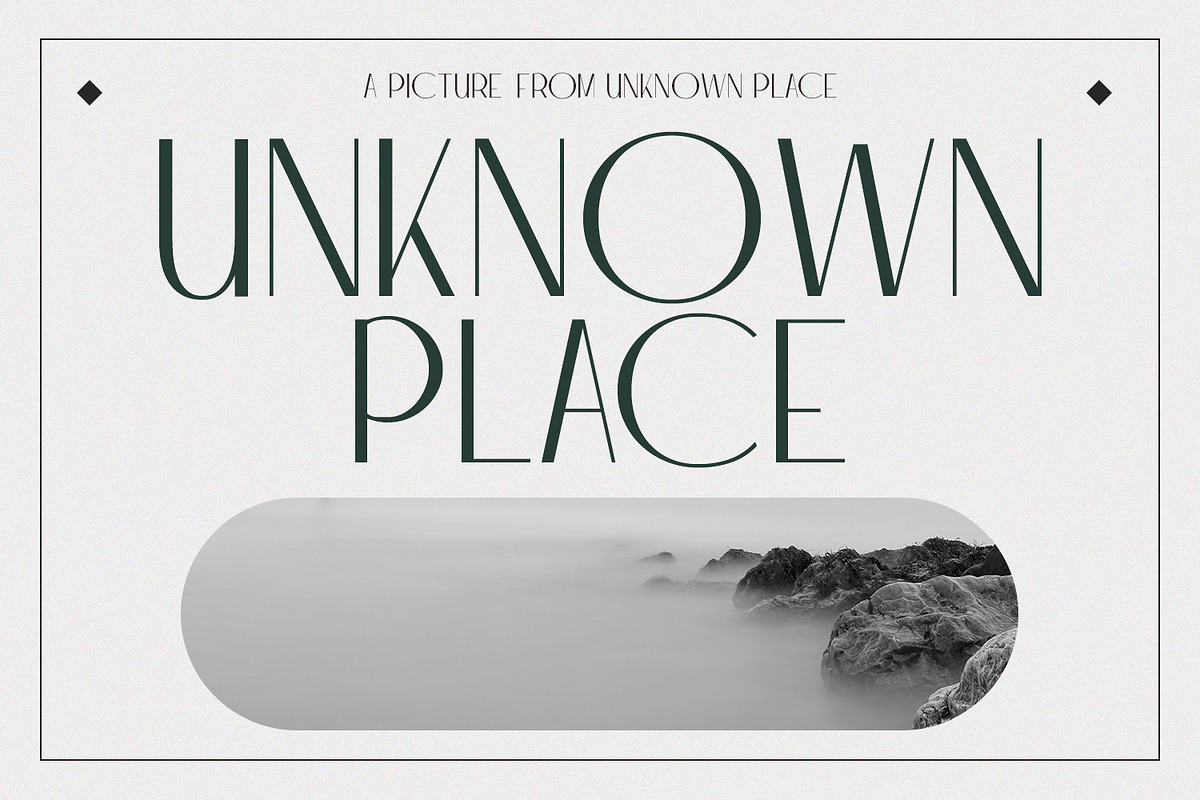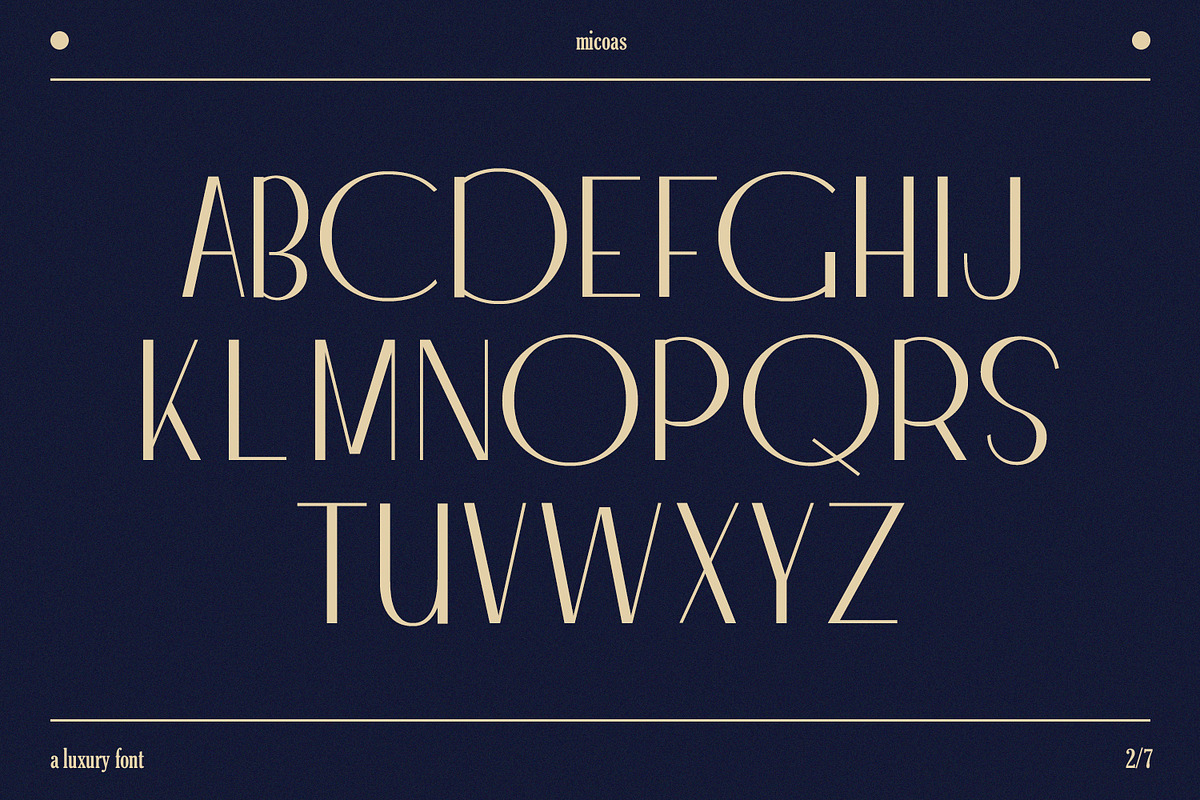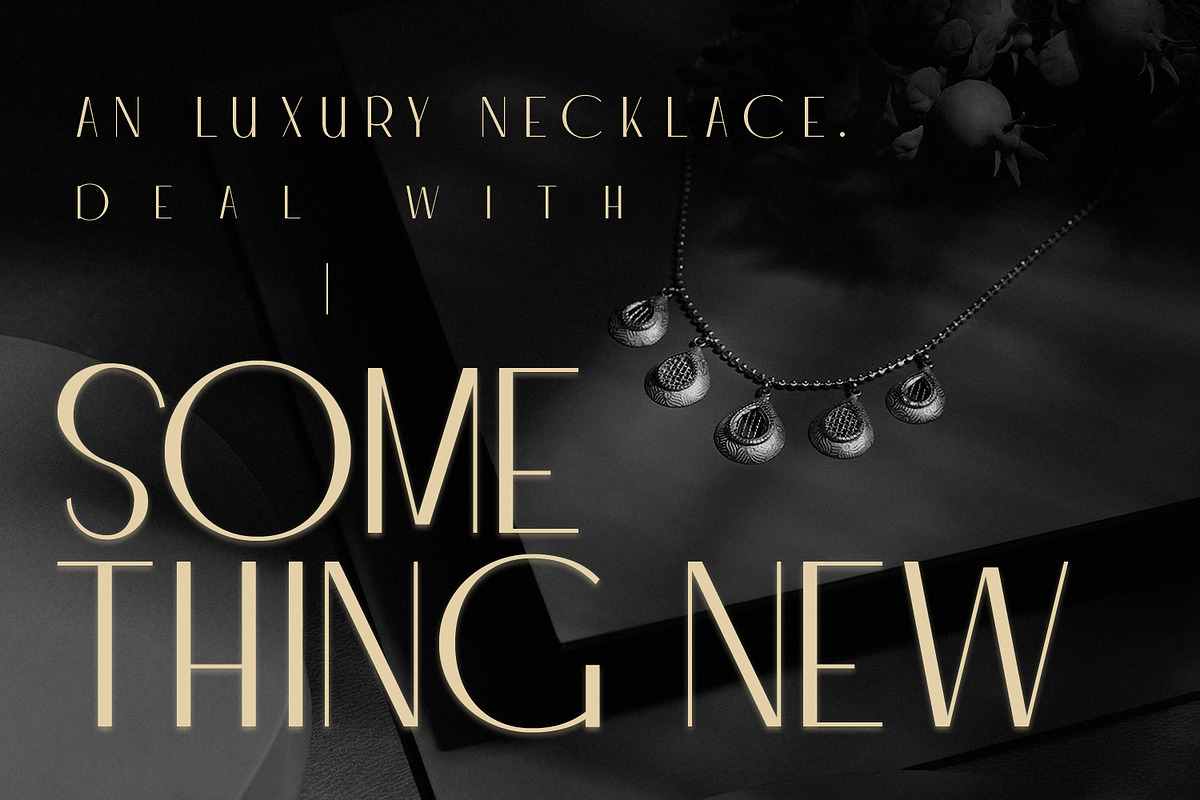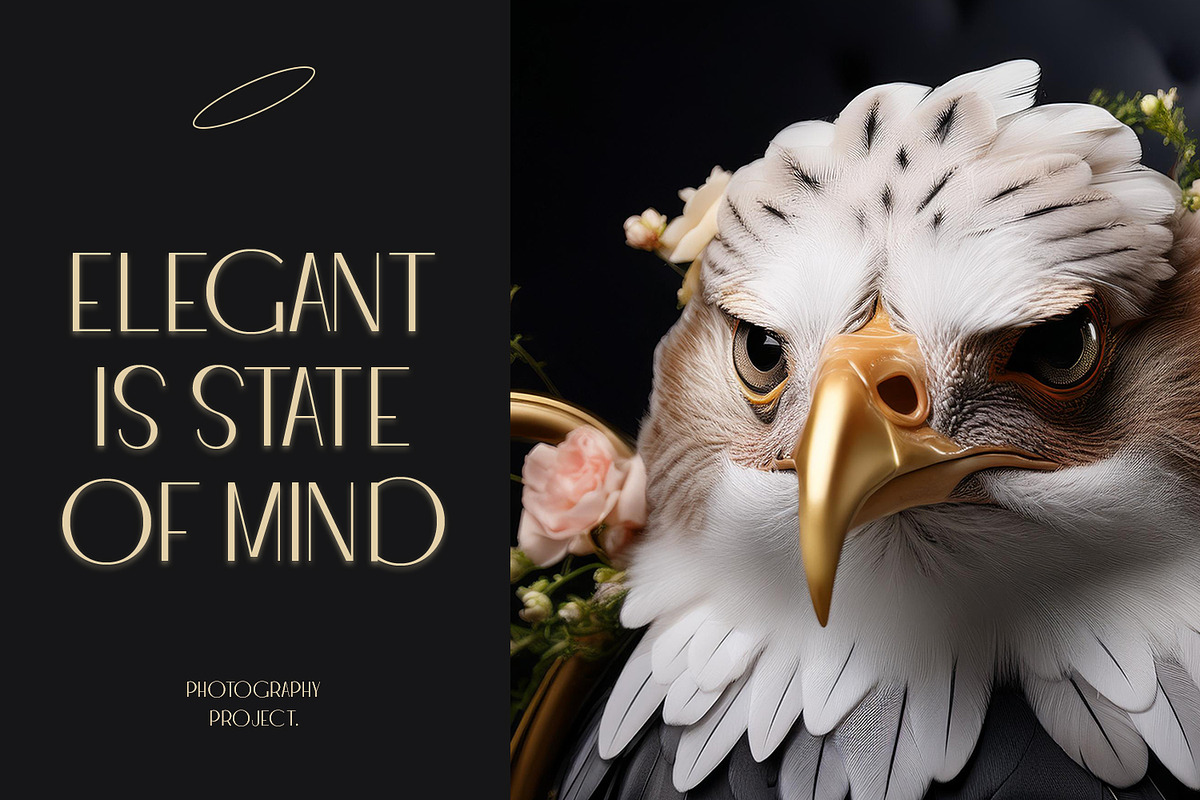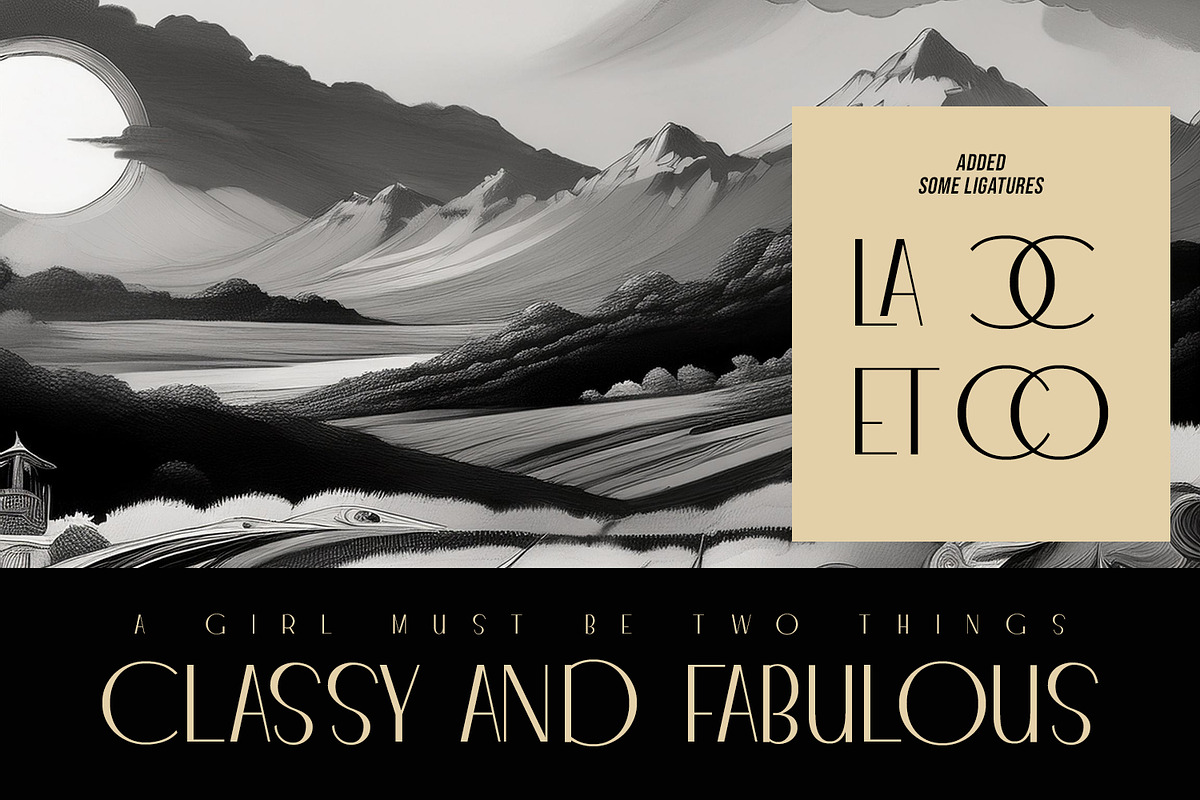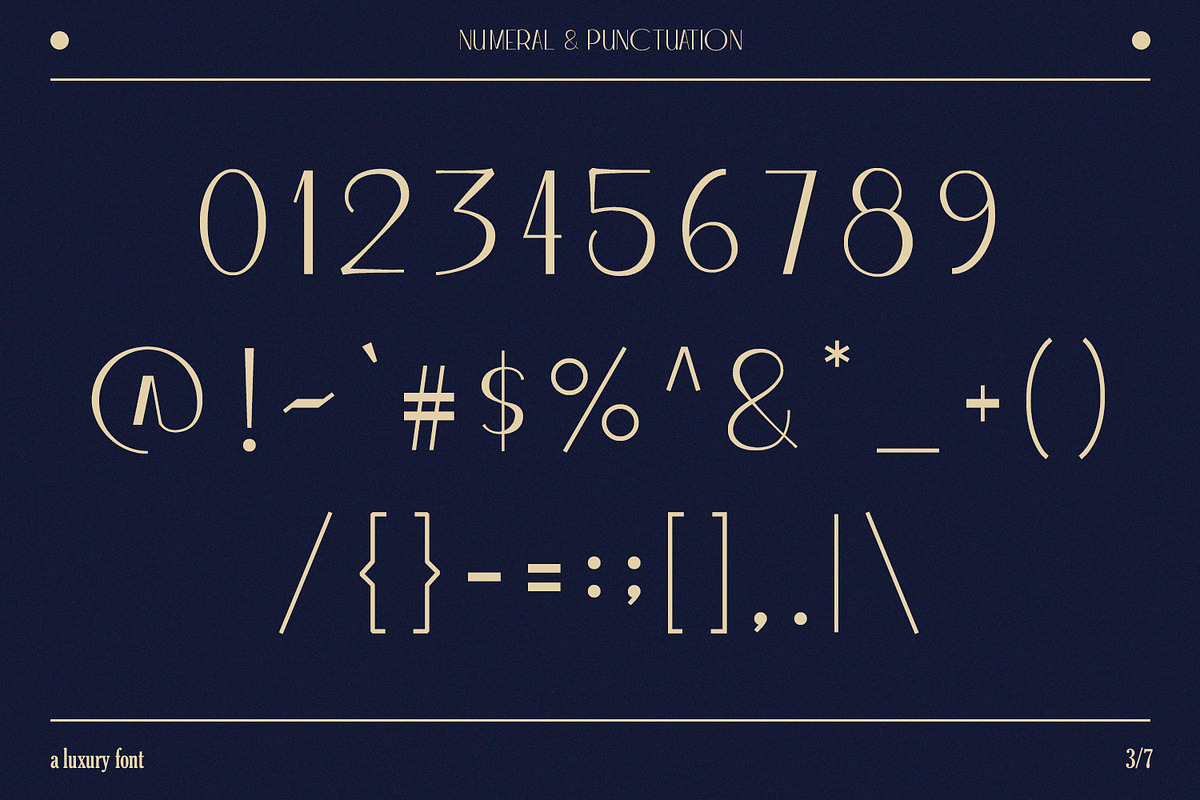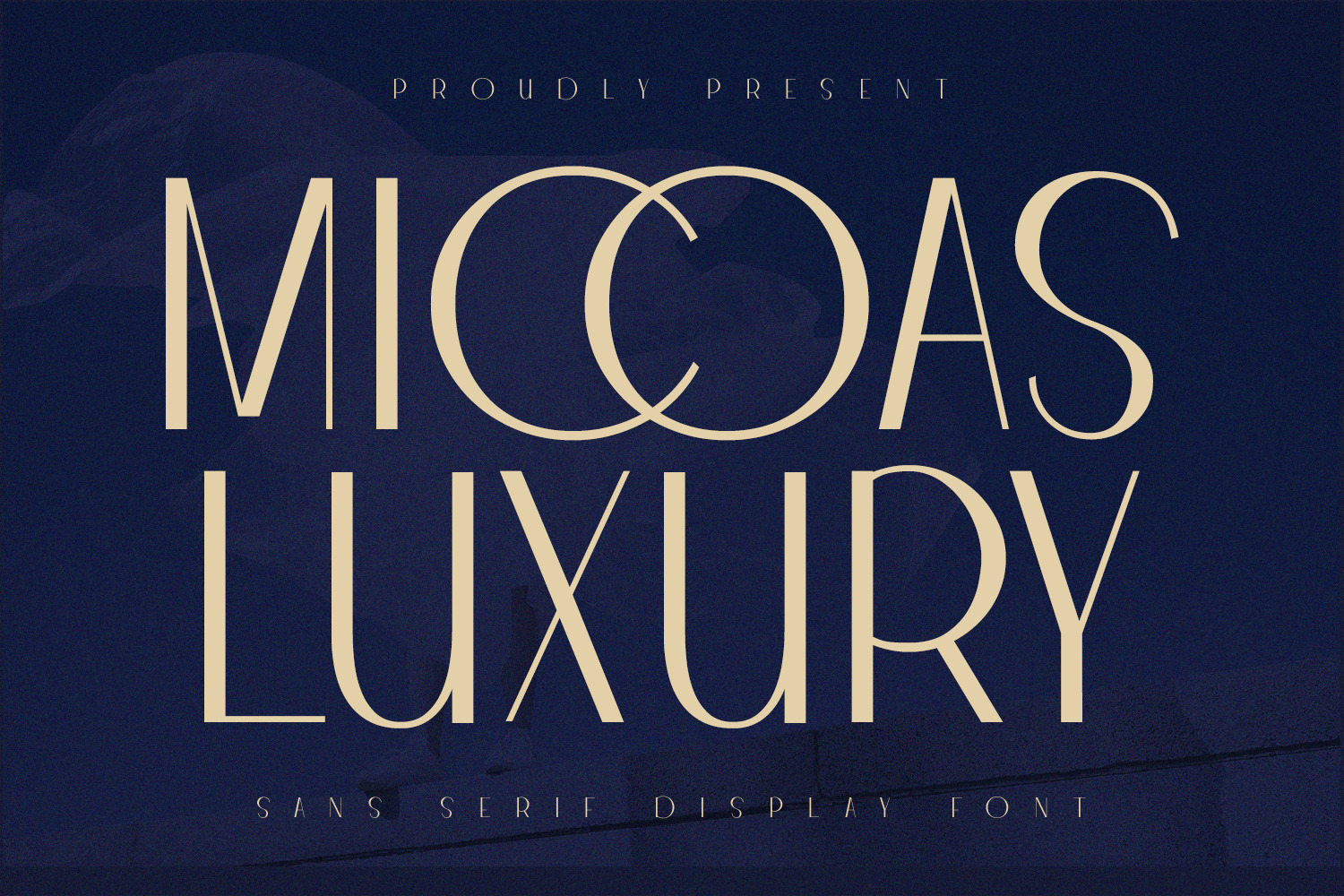
Micoas Sans Serif Display Font
Micoas Sans Serif Display Font is a elegant based sans serif font. Fun character with a bit of ligatures. To give you an extra creative work. Micoas font support multilingual more than 100+ language. This font is good for logo design, Social media, Movie Titles, Books Titles, a short text even a long text letter and good for your secondary text font with script or serif. Make a stunning work with Micoas font.